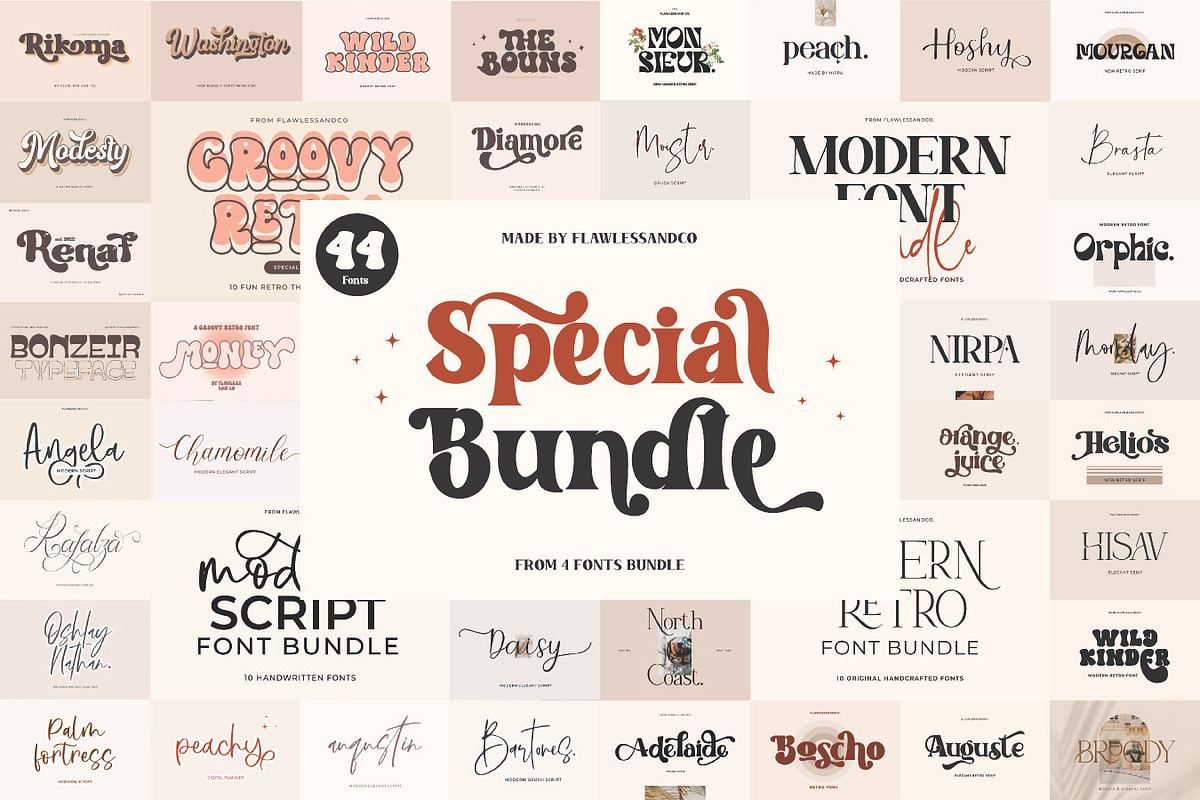
Special 44 Fonts Bundle Free Download
Special 44 Fonts Bundle Free Download is a comprehensive and highly versatile collection of fonts featuring a wide variety of styles—from elegant scripts and bold display fonts to clean sans serifs and artistic serifs. Whether you're designing for branding, logos, invitations, packaging, editorial layouts, or digital content, this bundle has something for every project and aesthetic.
Each font in the bundle is thoughtfully crafted to complement both personal and professional work, making it a valuable asset for designers, content creators, and marketers alike. With 44 unique fonts, you’ll have endless creative possibilities at your fingertips.